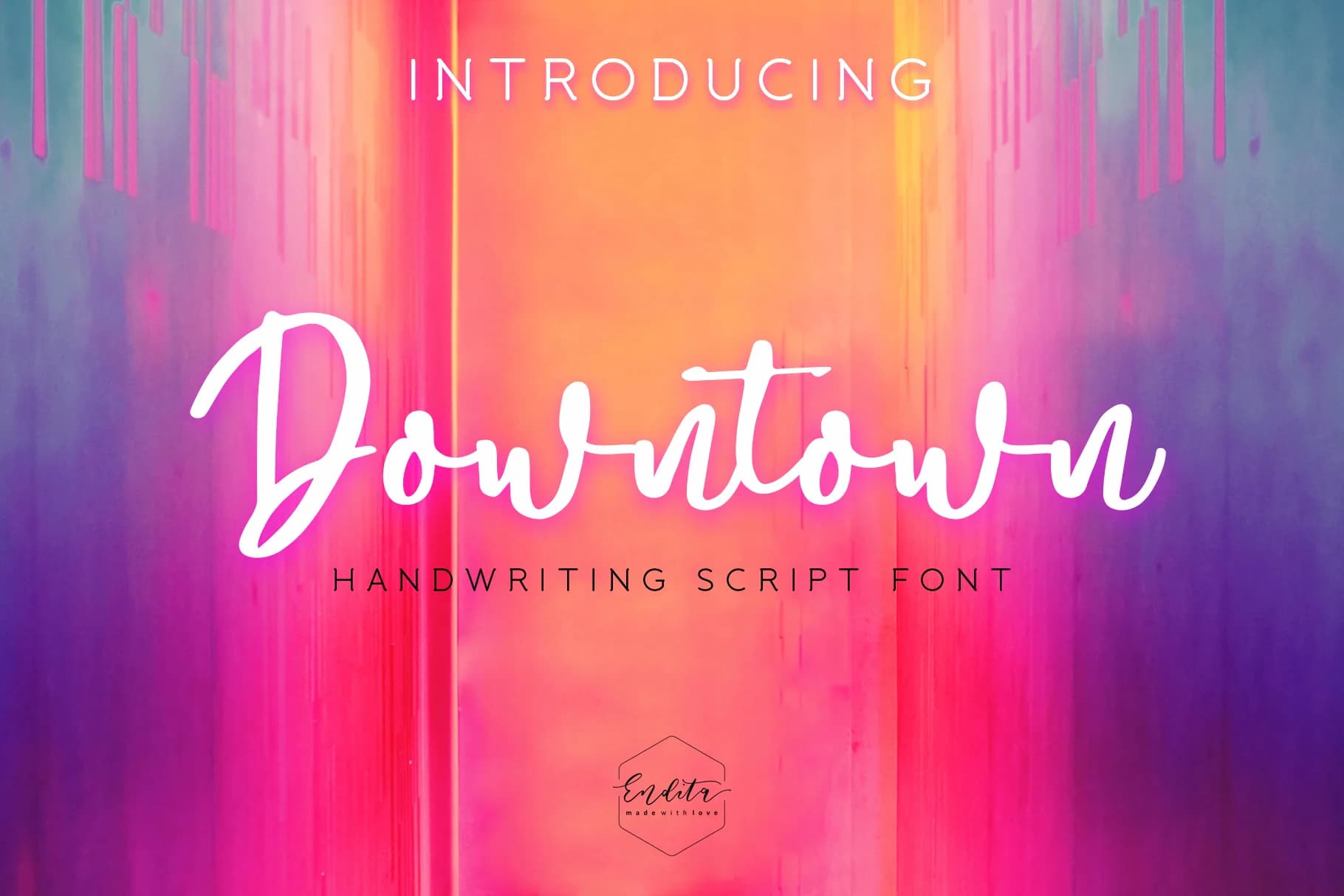
Downtown Font by Telllu is a handwritten script typeface that channels the raw energy and spontaneity of contemporary urban design culture. Built with fluid, organic letterforms and an authentically hand-lettered foundation, this typeface delivers genuine character and warmth to creative work without relying on artificial embellishment or excessive decoration. The typeface works effectively across diverse design applications. Brands building distinctive visual identities draw strength from its organic flow and natural personality. Wedding invitation suites gain an intimate, approachable quality, ideal for couples seeking genuine warmth and personality over formal convention. Social media content creators in lifestyle, fashion, and wellness categories find its contemporary energy perfectly aligned with platform aesthetics and audience expectations. Beyond digital spaces, Downtown Font brings authentic character to boutique skincare packaging, event posters, greeting card designs, and DIY craft signage. Whether set at large sizes for headlines or scaled smaller for supporting text, the typeface maintains strong readability while preserving its handmade sensibility and organic feel. Fully licensed for commercial use, Downtown Font works seamlessly across personal projects, client deliverables, and small business ventures without restrictions. Discover this typeface on Creative Fabrica and start using its distinctive character to bring authentic personality and voice to your next creative endeavor.
- Elegant, Flowing, Downtown
Downtown Font is a script font that shines as a display or heading face. Pair it with a clean sans-serif or serif font for body text β the contrast creates a clear hierarchy while the two styles stay balanced and easy to read.
Downtown Font
by Telllu